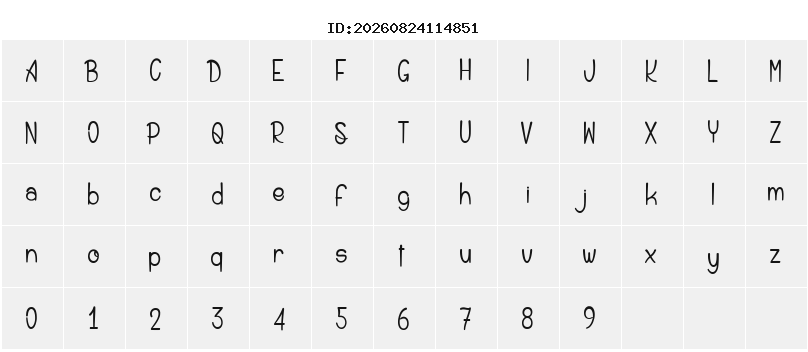
Saint Andrew des Kiwis Preview
• Font Name: Saint Andrew des Kiwis
• Designer: dcoxy Medina Gregory
About Saint Andrew des Kiwis.ttf
Saint Andrew des Kiwis.ttf is a modern, elegant sans-serif font designed for ultimate readability and visual harmony. Perfect for branding, headlines, web design, and print materials.